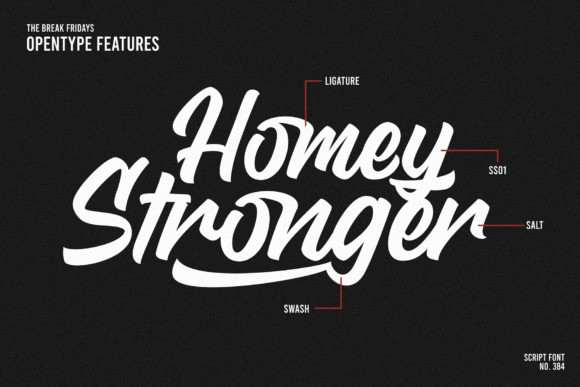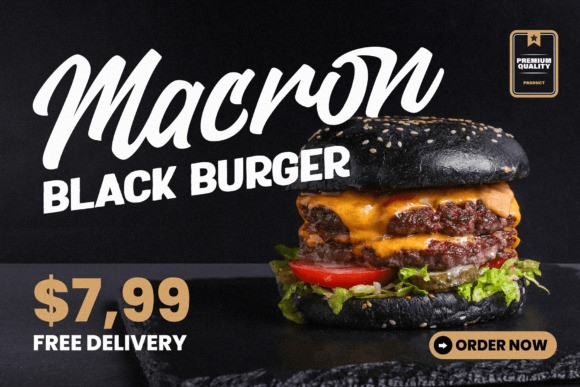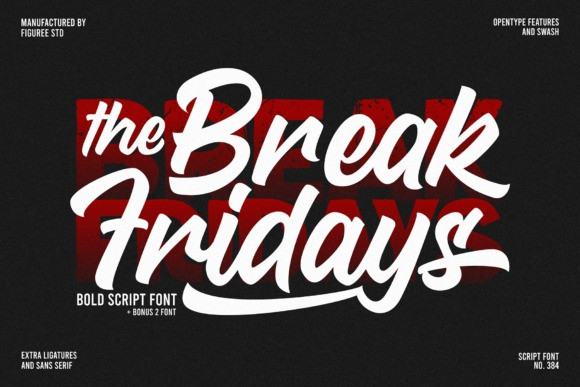
Break Fridays Font
Break Fridays Font – the Clean Bold Script Font that brings a fresh, energetic vibe to your designs. With its striking, clean lines and extra opentype features, Break Fridays is perfect for projects that demand a bold and modern aesthetic. Plus, enjoy the added bonus of the Roads Block Font for even more creative versatility.
Bold and Clean: Break Fridays stands out with its clean, bold script that delivers a clear and confident message. Each character is meticulously designed to balance strength and elegance, making it ideal for designs that need a contemporary, polished touch.
Extra Opentype Features: This font comes packed with extra opentype features, including ligatures, alternates, and stylistic sets, giving you endless possibilities to customize your text and add unique flair to your projects. Enhance your designs with the seamless integration of these advanced typographic options.
Versatile and Modern: Whether you’re designing for print or digital media, Break Fridays adapts effortlessly to various applications. Its distinctive style is perfect for a wide range of creative projects, from branding and packaging to social media graphics and promotional materials.
Bonus Roads Block Font: As a special addition, Break Fridays includes the Roads Block Font, providing you with even more design flexibility. The combination of these two fonts offers a powerful toolkit for creating dynamic and visually captivating compositions.
Unique Character: The bold script of Break Fridays adds a unique character to your designs, making them stand out from the crowd. Each letter exudes a sense of modernity and artistic expression, perfect for projects that require a strong and stylish touch.
Elevate your designs with Break Fridays – the Clean Bold Script Font that combines modern elegance with bold confidence. Perfect for making a striking visual impact, Break Fridays, along with the bonus Roads Block Font, is your go-to font for adding a powerful and versatile touch to any project.